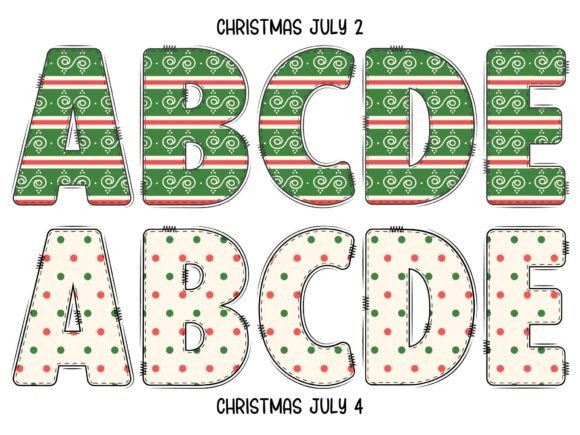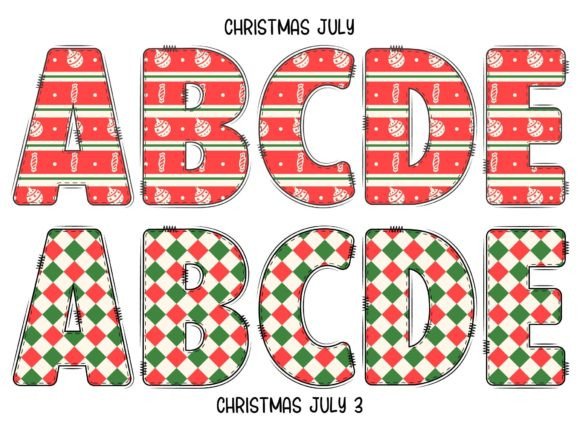
Introducing Christmas July Font: The Ultimate Festive Addition to Your Designs
Are you looking for a font that captures the essence of Christmas and adds a touch of festivity to your designs? Look no further than the Christmas July Font! This adorable and vibrant color font is specifically designed to make your Christmas-themed projects stand out. Whether you’re a designer, crafter, or DIY enthusiast, Christmas July Font is the perfect addition to your creative toolkit.
What Makes Christmas July Font So Special?
Christmas July Font is more than just a font – it’s an experience. With its bright and cheerful color scheme, this font instantly evokes the feeling of joy and celebration associated with Christmas. Its playful and whimsical design makes it perfect for a wide range of applications, from festive greeting cards and invitations to holiday-themed shirts, crafts, and decorations.
Endless Design Possibilities with Christmas July Font
One of the best things about Christmas July Font is its versatility. This font can be used for a variety of design projects, including:
- Christmas cards and invitations: Add a personal touch to your holiday greetings with this festive font.
- Holiday shirts and apparel: Create eye-catching and fun designs for your Christmas-themed tees and hoodies.
- Crafts and DIY projects: Add a touch of festivity to your handmade crafts, such as ornaments, gift tags, and decorations.
- Social media graphics: Create engaging and shareable holiday-themed graphics for your social media channels.
Why Choose Christmas July Font?
So, why should you choose Christmas July Font for your design projects? Here are just a few reasons:
- Unique and eye-catching design: This font is sure to grab attention and add a touch of festivity to your designs.
- High-quality and scalable: This font is designed to look great in any size, from small icons to large banners.
Tips and Tricks for Using Christmas July Font
To get the most out of Christmas July Font, here are a few tips and tricks:
- Experiment with colors: While the font comes in a standard color scheme, feel free to experiment with different colors to match your brand or design aesthetic.
- Mix and match with other fonts: Combine Christmas July Font with other fonts to create a unique and visually appealing design.
- Use it sparingly: While Christmas July Font is festive and fun, use it sparingly to avoid overwhelming your design.
Christmas July Font is a fun, festive, and versatile addition to any designer’s or crafter’s toolkit. With its bright and cheerful color scheme, this font is sure to add a touch of holiday magic to your designs. Whether you’re creating Christmas cards, holiday shirts, or festive crafts, Christmas July Font is the perfect choice. So why wait? Download Christmas July Font today and start creating your own festive and fun designs!